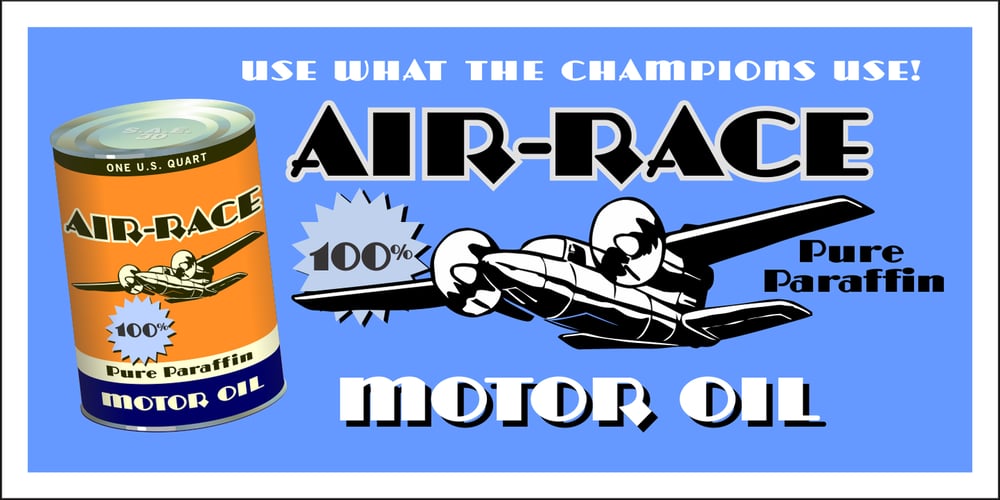
Fats Deco
Fats Deco font
Fats Deco Font Family was designed by Rodney Vicik and published by Red Rocket Signs. Fats Deco contains 1 styles and family package options. Fats Deco is loosely based on H.C. Martin’s Modern Thick and Thin. He referred to it as the “Blood cousin to BROADWAY”. The alphabet appeared in a series of booklets produced by Martin in the mid to late 1930s. These “Idea Books” were to provide inspiration and instruction to both novice and professional sign painters. As I studied not only the alphabet but also the way Martin departed from it when it fancied him, I realized that he was producing what today would be referred to as alternate characters. It was these alternates that inspired me to produce this font. If you are familiar with Martin’s alphabet then you may notice that I have modernized my font by rounding all terminals on the thin strokes. Also, since the original alphabet was devoid of any lowercase characters, I created them along with matching numbers, punctuation, diacritics and special characters; 241 glyphs in all. Included with the Fats Deco font as a free bonus is my Common Connectors, eleven in all (see images). These are connector words that are often used in signage and general headings, usually in a smaller size than the display type.